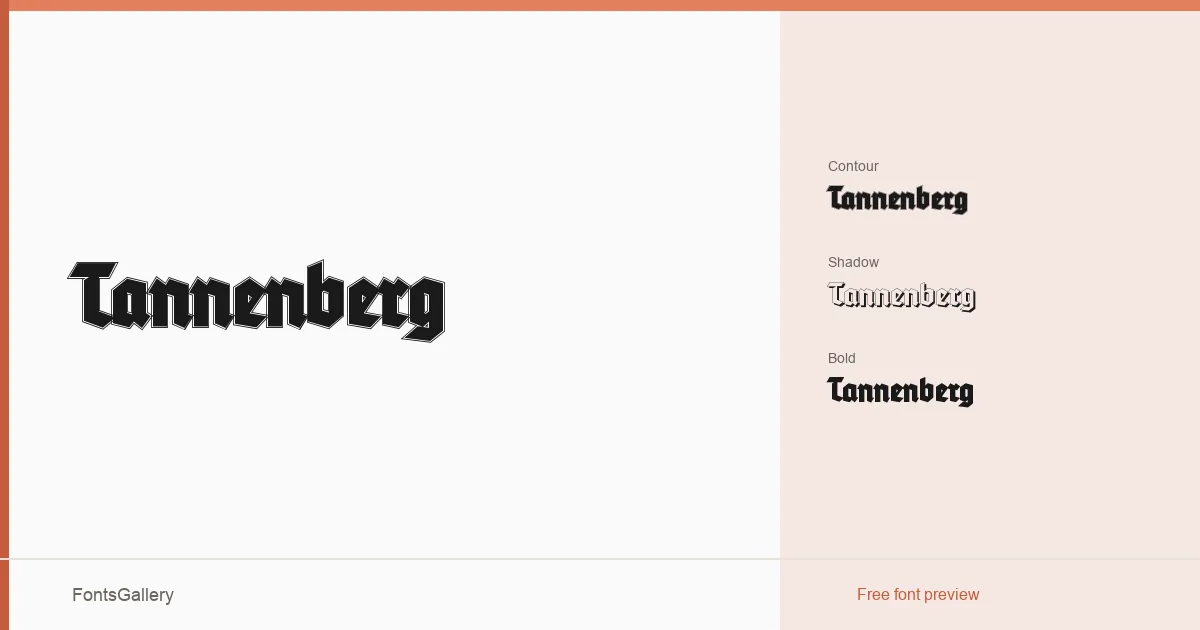
About Tannenberg Font
Tannenberg is a striking blackletter typeface published by Typographer Mediengestaltung. It channels the rich tradition of classic blackletter lettering while incorporating a bold, vintage character that commands immediate attention. Its strong, expressive forms make it a powerful choice for designs that demand presence and personality.
Tannenberg's letterforms embrace the dense, angular construction characteristic of the blackletter category, delivering a bold and classic aesthetic with an underlying grunge edge. Each character carries a sense of historical weight and visual drama, making the typeface feel both timeless and raw. The combination of vintage styling and bold strokes gives it a rugged, unapologetic personality that stands out at any scale.
Tannenberg is ideally suited for logos, posters, branding projects, t-shirt designs, and signage where a commanding, vintage-bold statement is desired. Its strong character works particularly well in contexts that call for heritage-inspired or edgy visual identities. For a balanced typographic pairing, consider combining Tannenberg with the clean neutrality of Helvetica or the complementary style of Aresink.